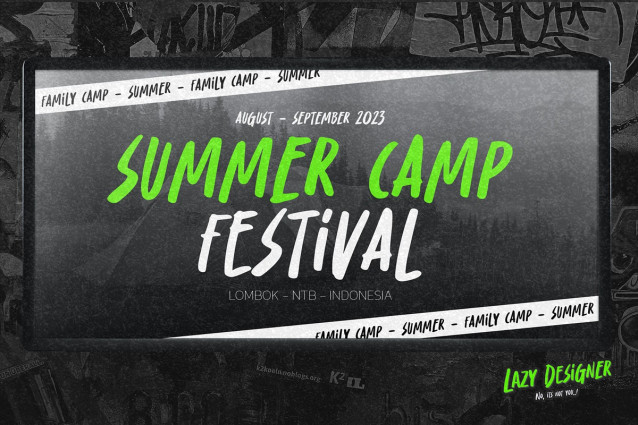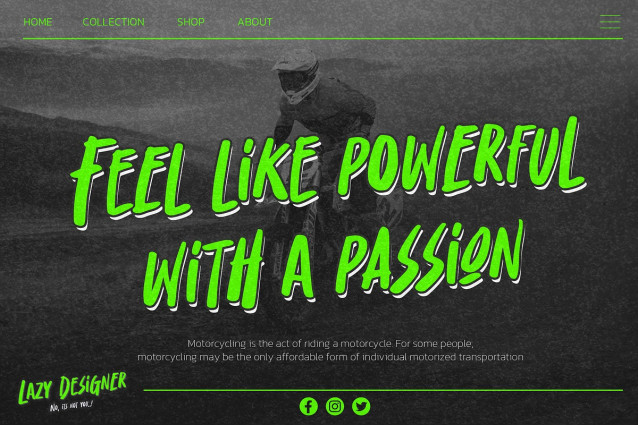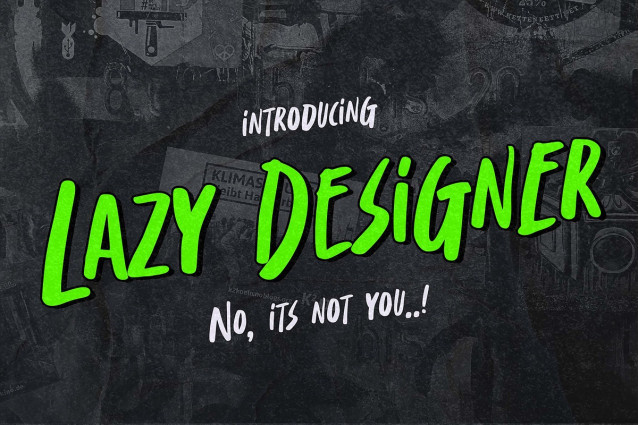
Lazy Designer Font
Lazy Designer Font is a display typeface created with a purposely laid-back, loose, and playful personality. Its relaxed, expressive strokes and slightly messy handcrafted look give it a fun, spontaneous vibe like something designed while chilling out, yet still looking cool and eye-catching. With its flexible character and free-flowing style, Lazy Designer is perfect for designs that aim to feel fun, casual, humorous, and creatively quirky. Despite the name “Lazy,” your designs will still look fresh, unique, and standout.